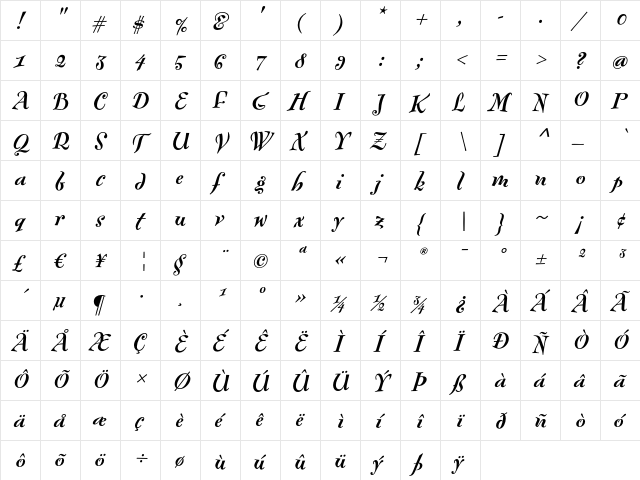
FontesqueText-BoldItalic Regular Font Preview
Design Context for FontesqueText-BoldItalic Typeface
FontesqueText-BoldItalic takes a measured approach to typography — its balanced proportions and neutral character make it a reliable workhorse for both digital and print work. The dynamic lean of this cut emphasises speed and emphasis in any layout. The heavy weight commands attention and anchors typographic hierarchies.
Pro Tip: Try FontesqueText-BoldItalic for annotation and caption copy alongside an upright companion — the contrast in angle creates a dynamic but ordered typographic system.